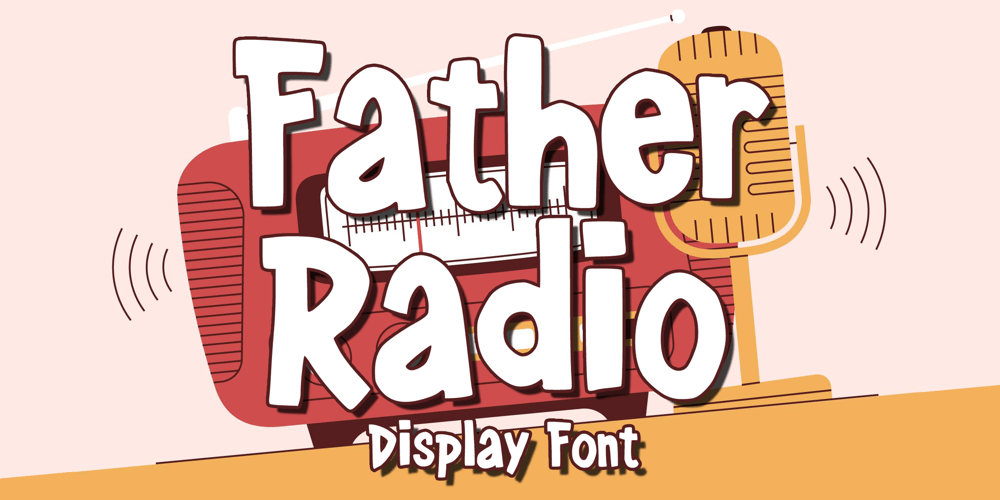
Father Radio
Father Radio font
Father Radio Font Family was designed by Gabriel Valentinus and published by Mvmet. Father Radio contains 1 styles and family package options. Father Radio is a playful and fun to use display font. It will elevate a wide range of design projects to the highest level. You can use this font for many design ideas such as stickers, t-shirt designs, amazing logo designs, magazine or book covers, comics, cartoon drawings, and many more. This font will add a super cool touch to your designs!